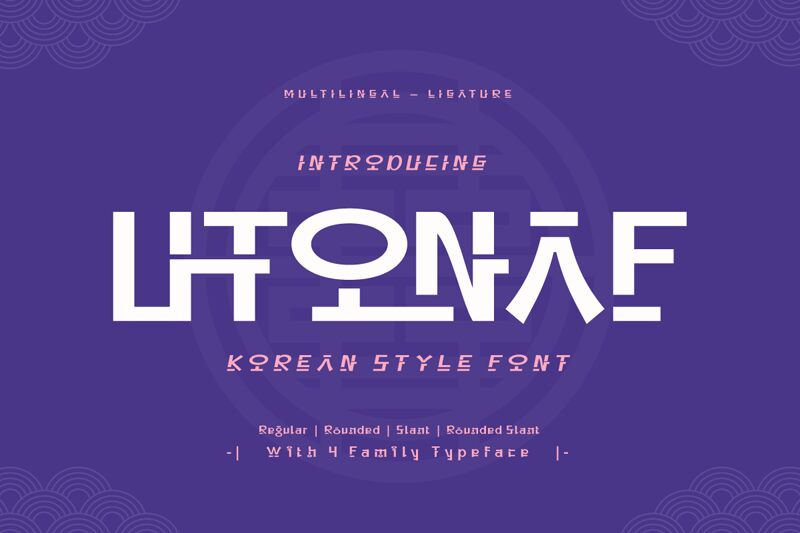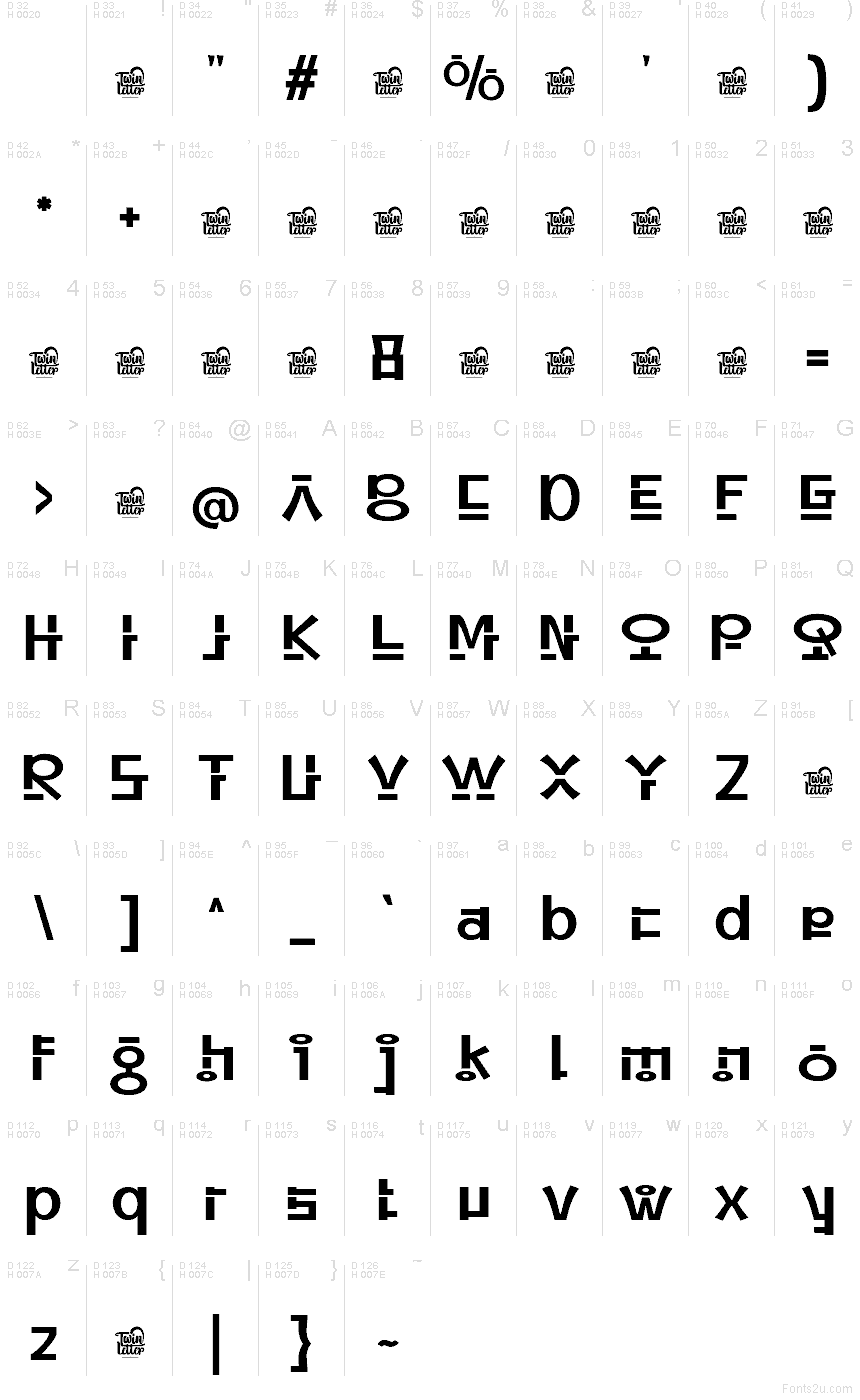
Utonaf, crafted by Twinletter, stands out as a faux Korean typeface that offers a playful and modern twist to typography. It boasts bold strokes and an imaginative structure that mimics the form and rhythm of Korean characters while maintaining readability in Latin script. The font's robust presence is paired with an artistic flair, making it both eye-catching and functional.
This font holds versatile potential for various design applications where a touch of cultural fusion is desired. Its uniqueness makes it suitable for branding projects, fashion labels, or any creative endeavor seeking to convey a contemporary yet global aesthetic. Utonaf bridges the gap between different writing traditions, inviting designers to explore a typographical journey that's both intriguing and grounded in cross-cultural appreciation.